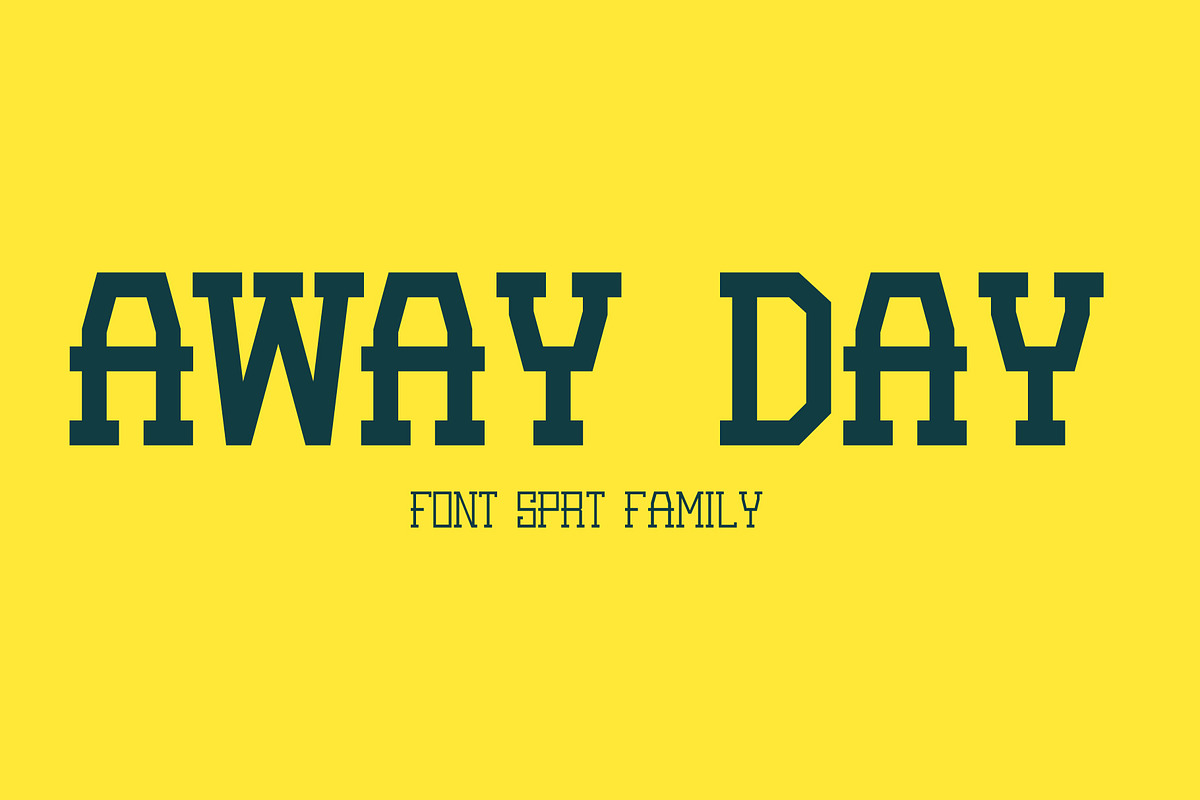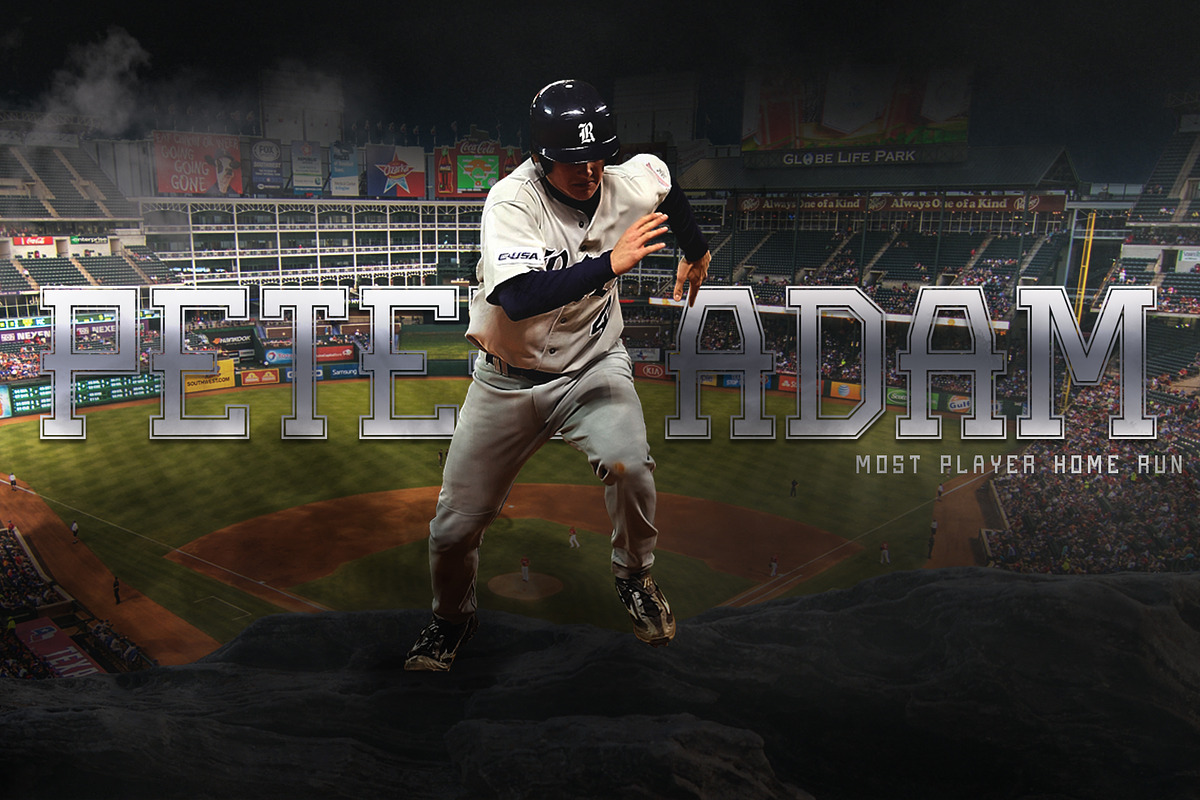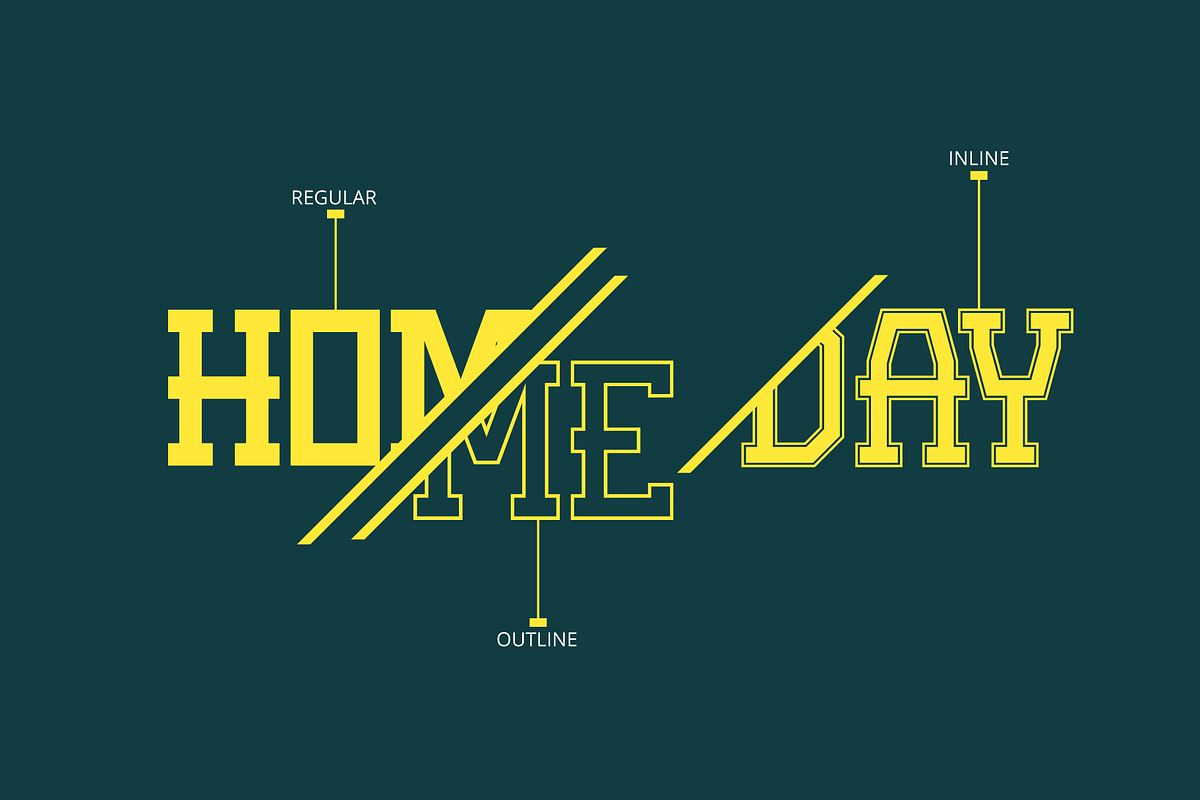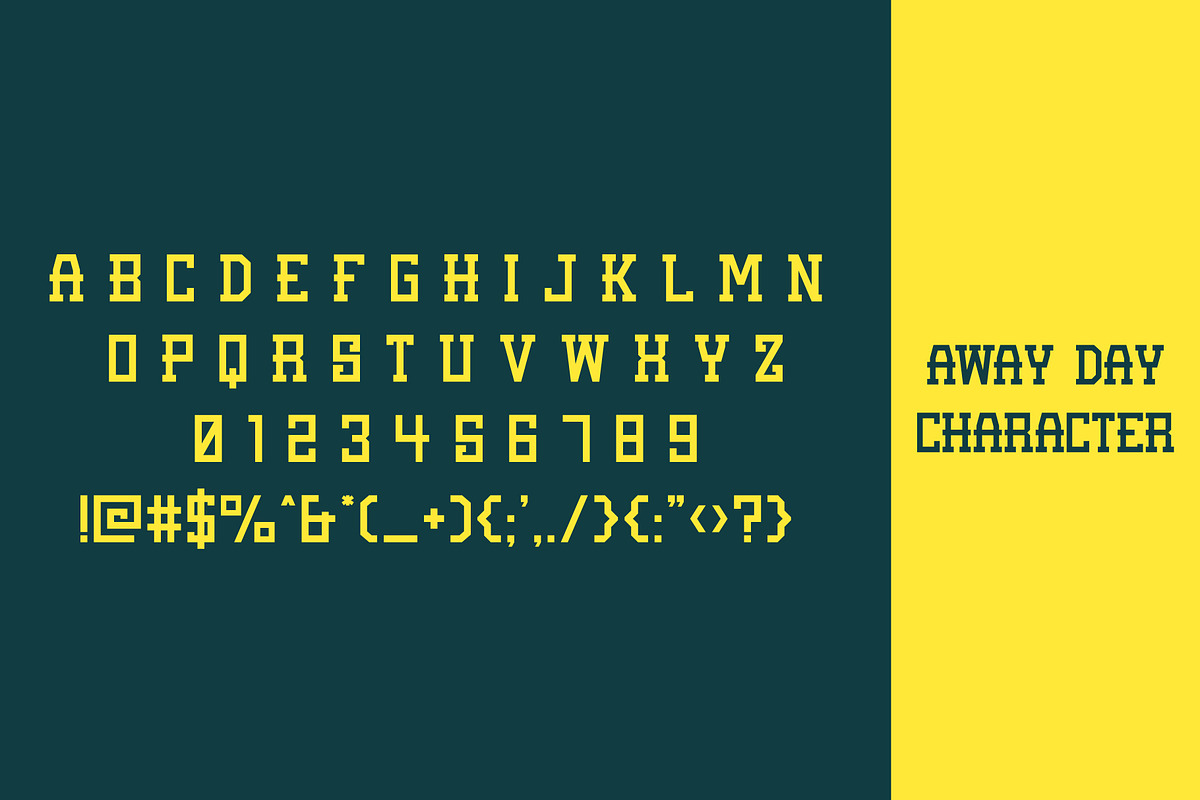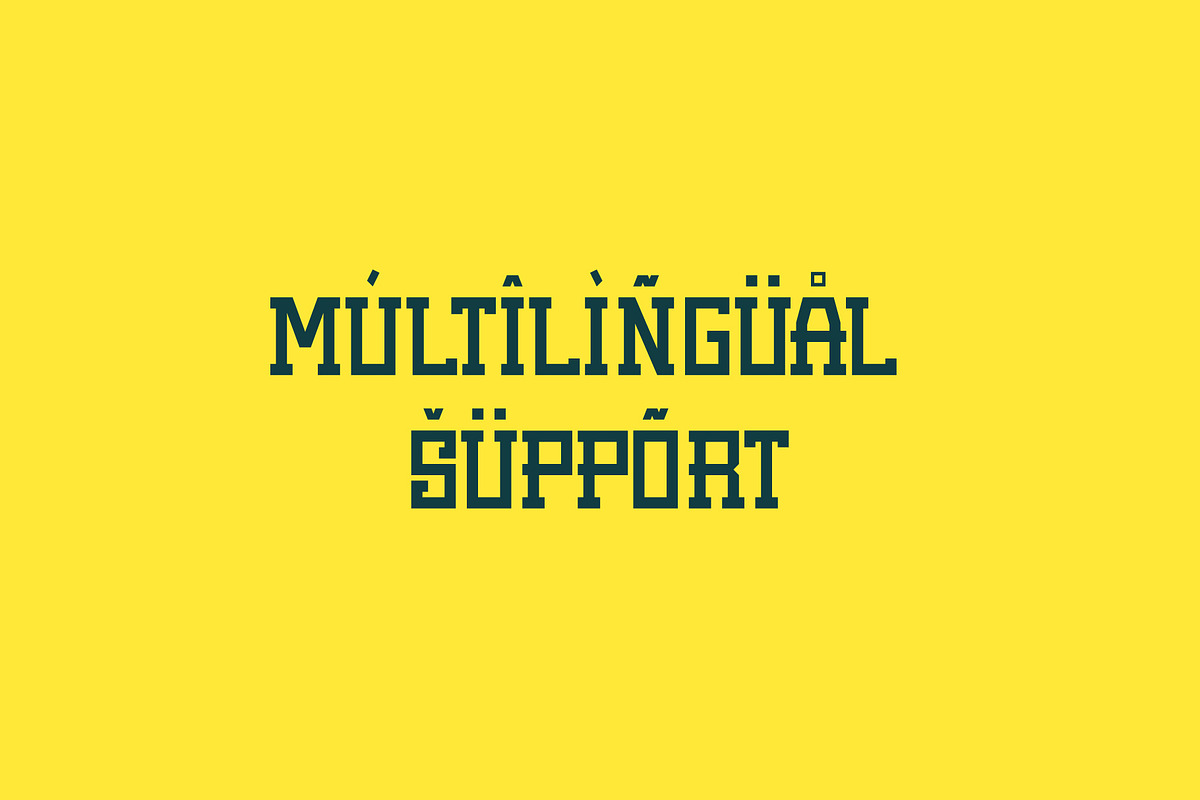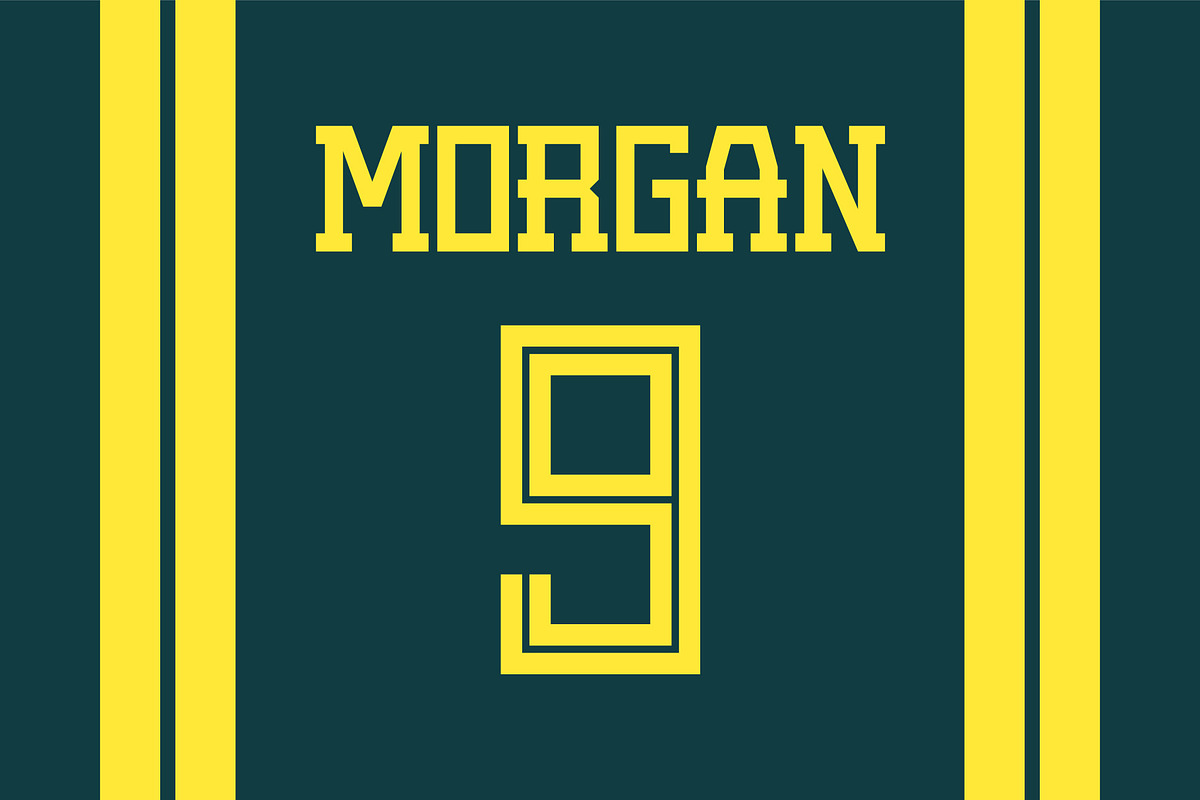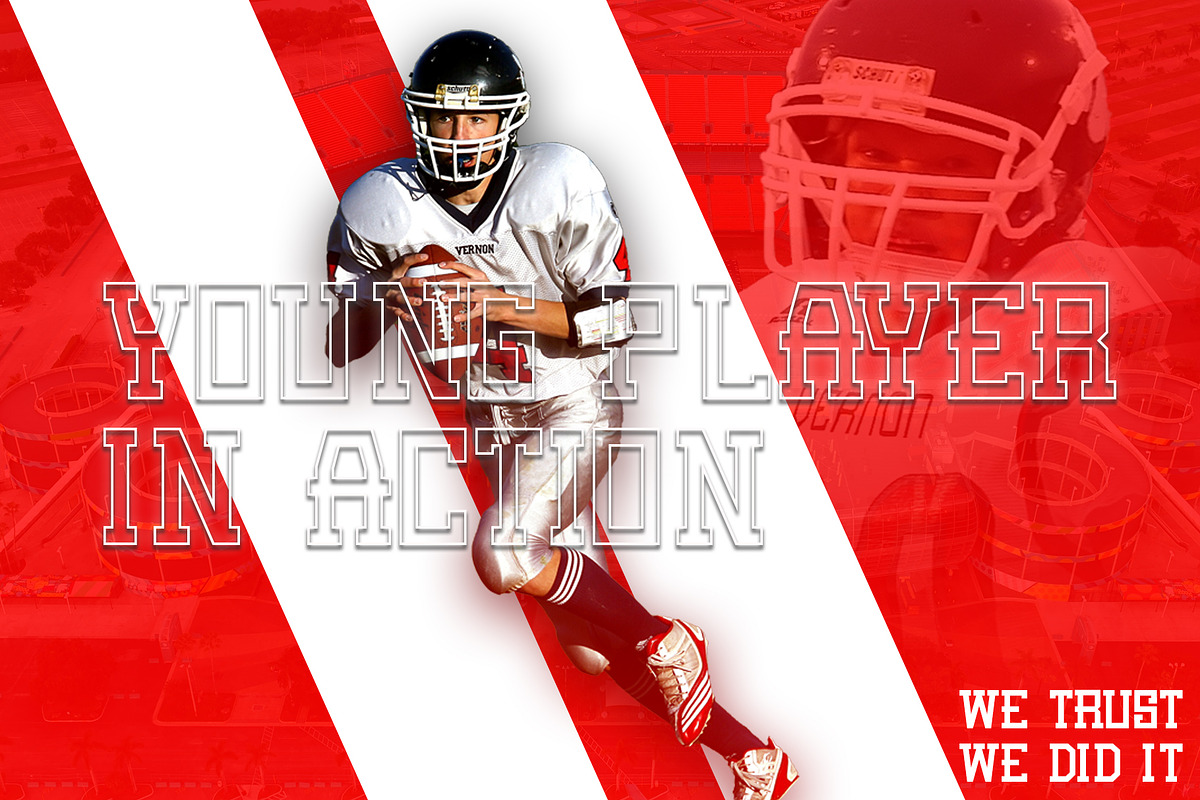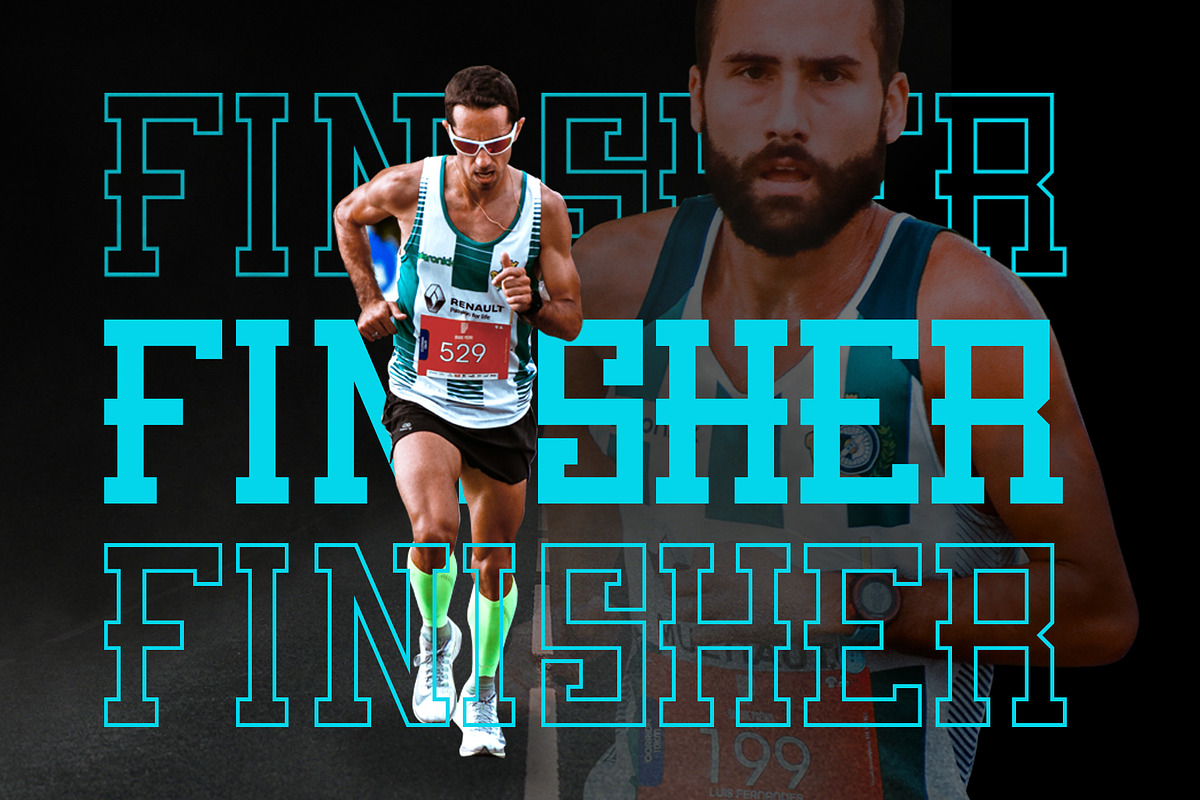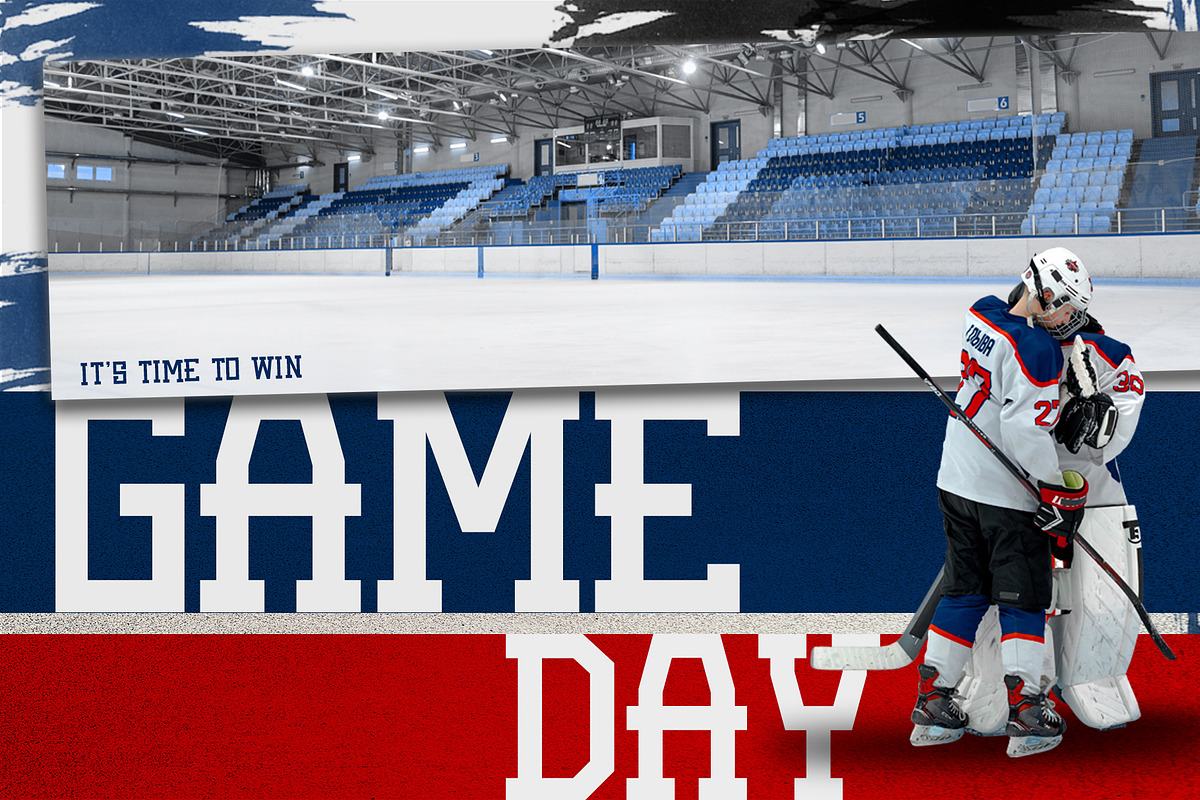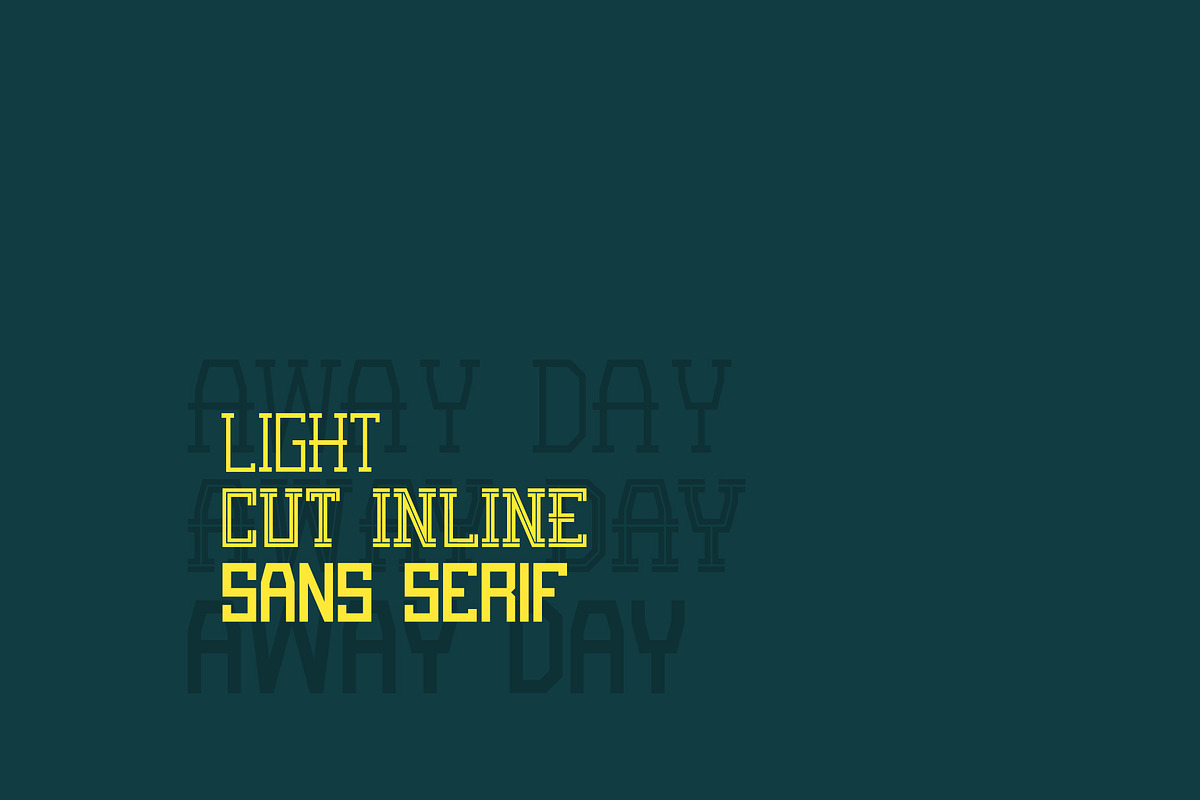
Away Day
Away Day Font Family was inspired by the creator's love for sports. This font's design style is inspired by some strong and sturdy sports. You can also use this font for graphic design, sports branding, sports shirts, quotes, design titles, sports-themed movies to television programs.
if you want more you can explore this font in the form of merchandise such as key chains, stickers or greeting cards. try and feel the fun.
- Standard Ligature